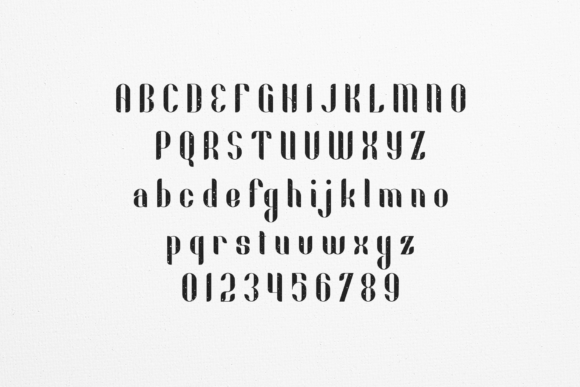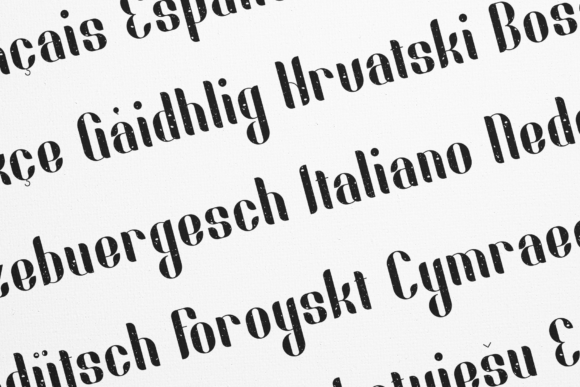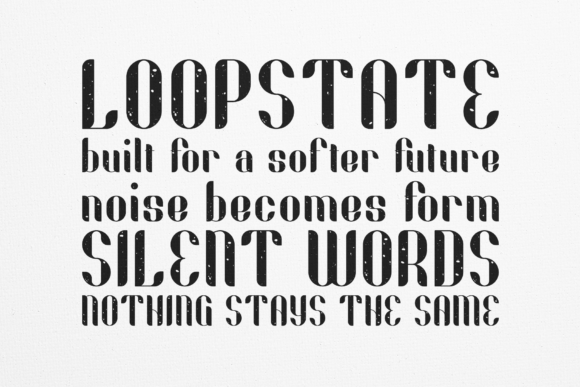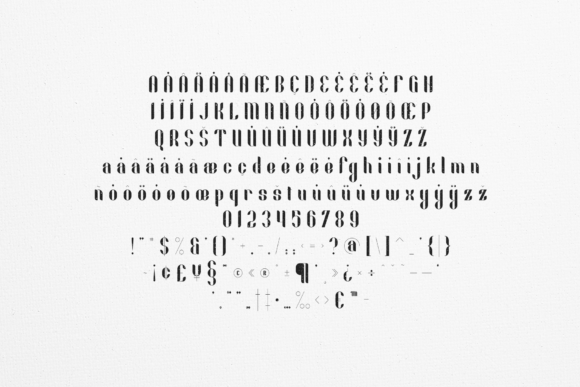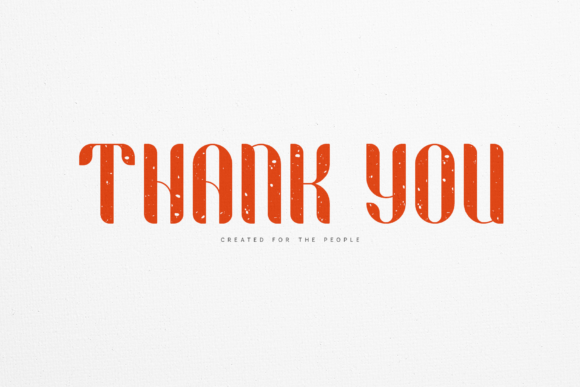
Fika Rough Font: A Bold Vintage Display Typeface with Character
In the world of typography, a good font can make all the difference in a design. It can elevate a project from ordinary to extraordinary, adding warmth, character, and personality to every element. For designers and crafters looking for a unique and eye-catching typeface, Fika Rough is an excellent choice. This bold vintage display font is inspired by retro signage, old print textures, and handcrafted typography, making it perfect for projects that require a touch of nostalgia and whimsy.
The Inspiration Behind Fika Rough
Fika Rough is a carefully crafted typeface that draws inspiration from the past. Its design is rooted in retro signage, old print textures, and handcrafted typography, giving it a distinctive look and feel. The font’s creator aimed to capture the essence of traditional printing techniques, combining strong vertical letterforms with playful curves and softened terminals. The result is a typeface that feels both nostalgic and contemporary, perfect for designers who want to add a touch of vintage charm to their projects.
Key Features of Fika Rough
Fika Rough boasts several key features that make it an excellent choice for designers and crafters. Some of its notable characteristics include:
- Handcrafted distressed texture: Fika Rough has a subtle rough texture that adds an authentic printed feel to any design. This texture gives the font a natural, imperfect charm that feels both organic and unique.
- Bold and playful letterforms: The font’s strong vertical letterforms are balanced by playful curves and softened terminals, making it perfect for bold headlines, branding projects, and posters.
- Versatile and highly legible: Despite its bold and distressed texture, Fika Rough remains highly legible, making it suitable for a wide range of design applications, from packaging to editorial layouts.
Use Cases for Fika Rough
Fika Rough is a versatile typeface that can be used in various design projects. Some of the most suitable use cases include:
- Bold headlines and titles: Fika Rough is perfect for creating eye-catching headlines and titles that demand attention.
- Branding and logo design: The font’s unique character and distressed texture make it an excellent choice for branding and logo design projects.
- Posters and flyers: Fika Rough is ideal for creating bold and eye-catching posters and flyers that stand out.
- Packaging design: The font’s playful and handcrafted feel makes it suitable for packaging design projects that require a touch of personality.
- Editorial layouts: Fika Rough can be used in editorial layouts to add a touch of whimsy and character to articles and stories.
Why Choose Fika Rough?
With so many typefaces available, why choose Fika Rough? Here are a few compelling reasons:
- Unique character: Fika Rough has a distinctive look and feel that sets it apart from other typefaces.
- Highly versatile: The font can be used in a wide range of design applications, from bold headlines to packaging design.
- Easy to read: Despite its bold and distressed texture, Fika Rough remains highly legible, making it suitable for body text and other applications where readability is essential.
Fika Rough is a bold vintage display typeface that brings warmth, character, and personality to every design. Its handcrafted distressed texture, strong vertical letterforms, and playful curves make it perfect for designers and crafters looking for a unique and eye-catching typeface. With its versatility, legibility, and distinctive character, Fika Rough is an excellent choice for a wide range of design projects. Whether you’re creating bold headlines, branding projects, posters, or packaging, Fika Rough is sure to make your designs stand out.